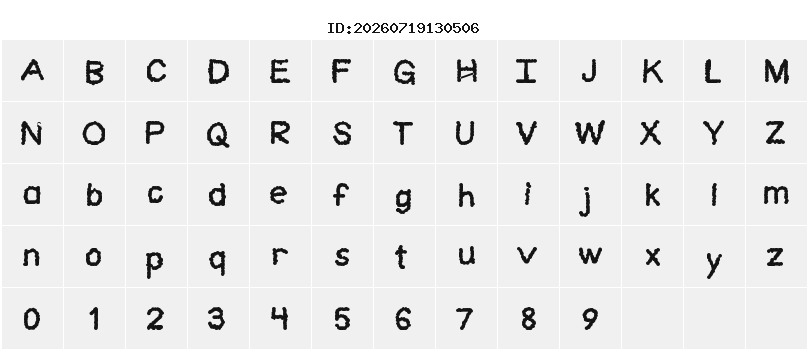
Cloudlike Preview
• Font Name: Cloudlike
• Full Font Name: Cloudlike
About Cloudlike.ttf
Cloudlike.ttf is a modern, elegant sans-serif font designed for ultimate readability and visual harmony. Perfect for branding, headlines, web design, and print materials.